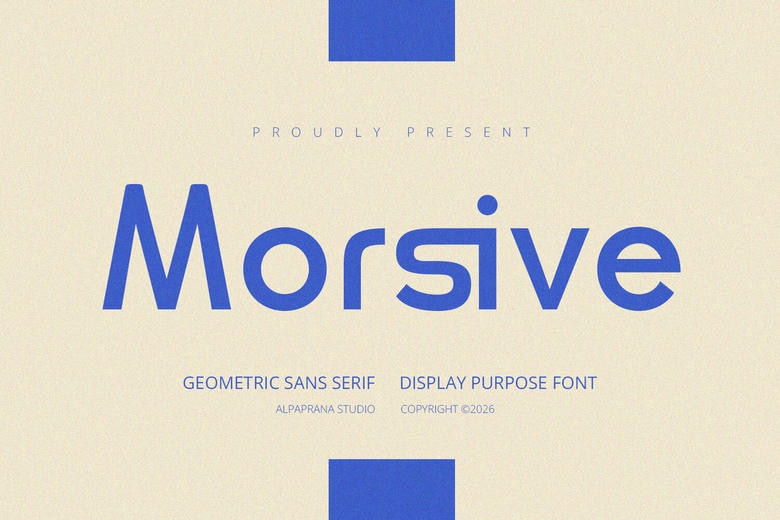
Morsive Font
Morsive is a display font with a modern look. It works well for branding, logo design, lettering, clothing, posters, magazines, packaging, shopping bags, t-shirts, book covers, photography, special events, and other design projects.
Morsive Display Font